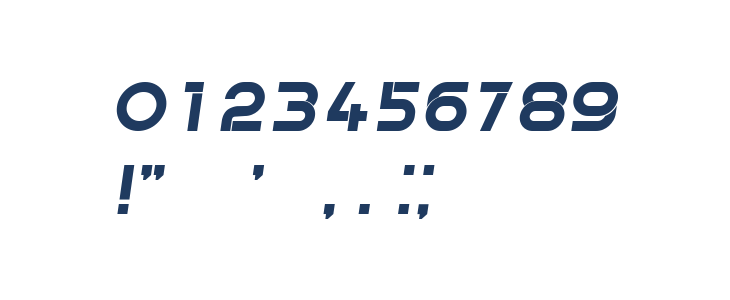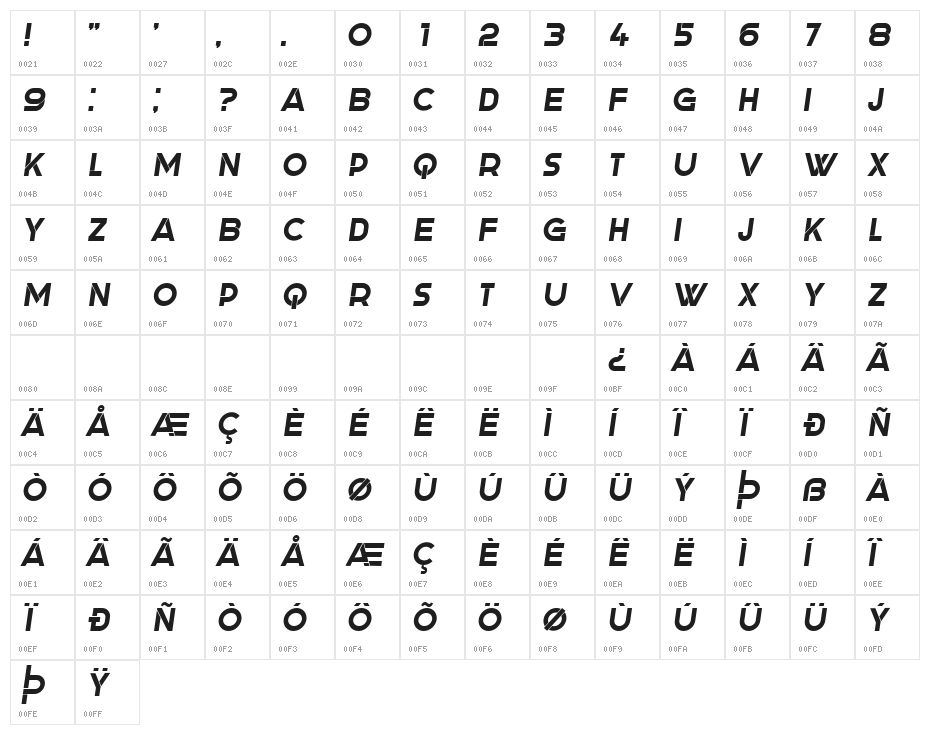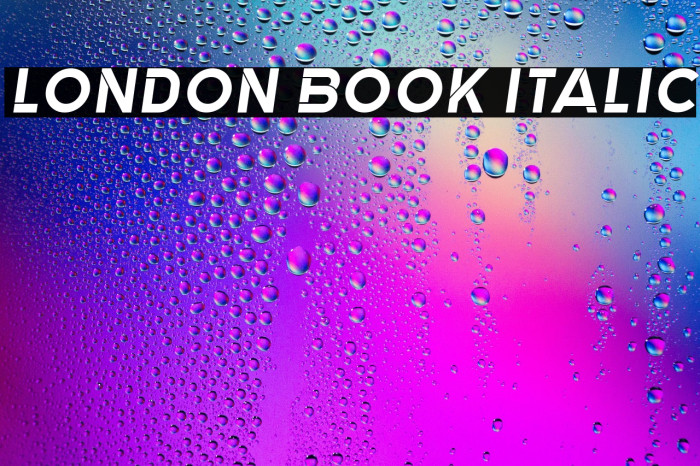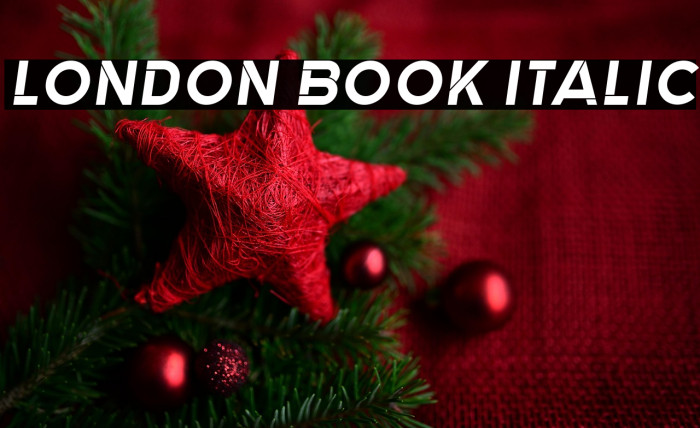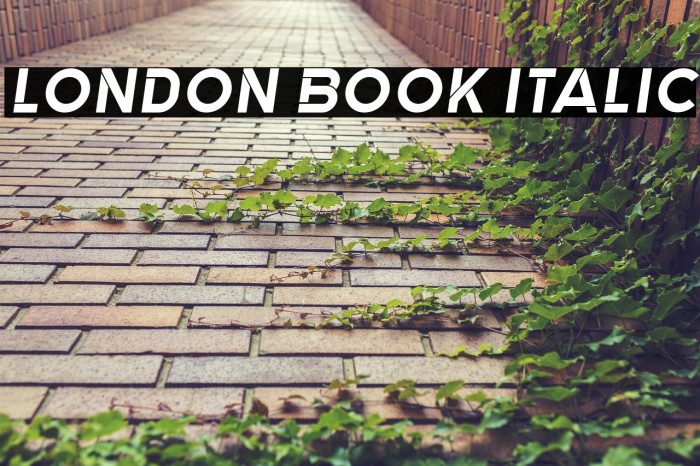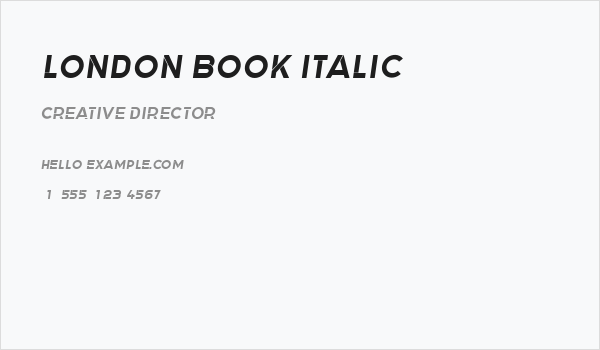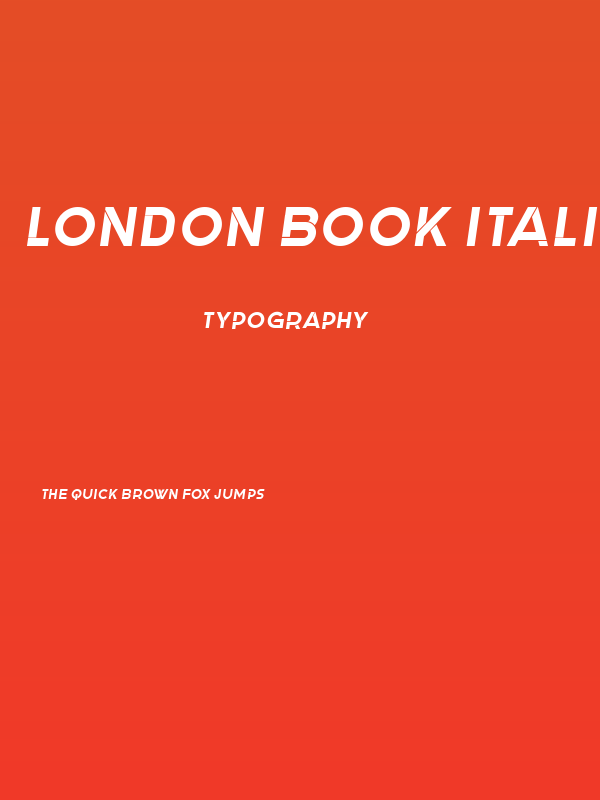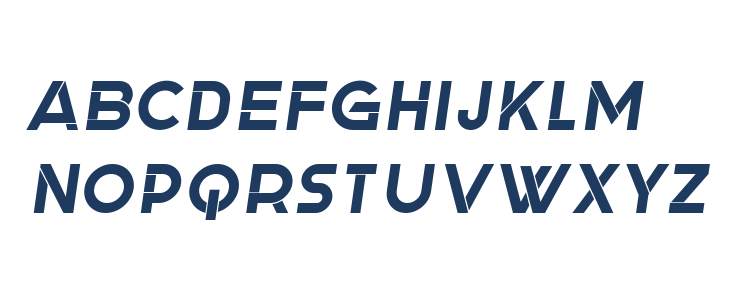
London Book Italic Font
London Book Italic Description
This font features a modern, italicized style with a distinct geometric influence. The characters are bold and slightly condensed, with sharp angles and clean lines that give it a futuristic appearance. The uppercase letters are particularly striking, with unique cuts and slants that add a dynamic feel. The lowercase letters maintain the same angular style, ensuring consistency across the typeface. Numbers and special characters are designed to match the overall aesthetic, making this font versatile for various applications. The italic slant adds a sense of motion and elegance, making it suitable for contemporary designs.
| Proposed Projects | Ideal for branding, advertising, and editorial design projects that require a modern and bold aesthetic. |